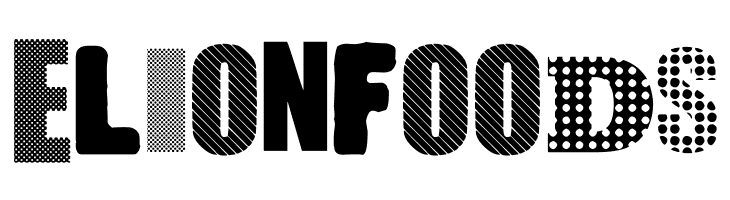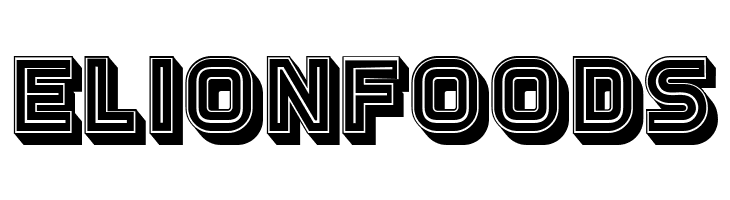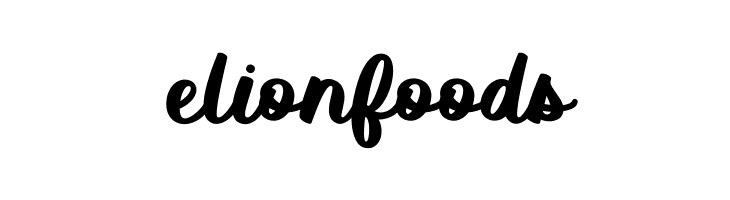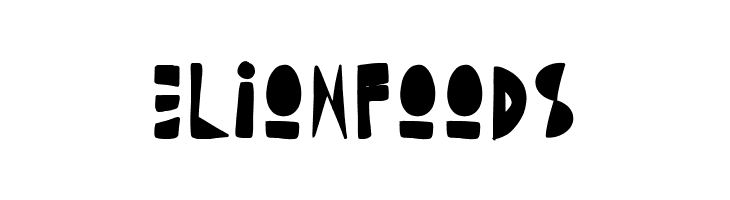
( Fonts by Kong Font )
A bold, playful font with rounded, skeletal-style characters.
A decorative, outline font with a bold, geometric style.
A modern, geometric font with bold, angular characters and a futuristic style.
A bold, 3D shadowed font with a modern, decorative style.
A modern, geometric sans-serif font with clean lines and a minimalist style.
( Fonts by Intype )
A playful, hand-drawn font with bold, rounded characters and exaggerated serifs.
( www.imagex-fonts.com )
A bold, patterned font with diverse textures and a playful, modern style.
( Fonts by Staircase Studio )
A playful, modern font with bold, rounded characters and consistent stroke width.
( Fonts by Staircase Studio )
A cursive, handwritten-style font with elegant, flowing strokes.
( Fonts by Staircase Studio )
A dynamic italic font with smooth, flowing lines and a modern aesthetic.
An elegant and flowing script font with sophisticated, cursive letterforms.
( Fonts by Tokokoo Studio )
A bold, angular font with a rugged, rock-like appearance.
( Fonts by dcoxy )
Highly decorative ornamental glyphs for borders and embellishments.
A bold, distressed font with a vintage, rustic aesthetic.
A bold, three-dimensional decorative font with strong geometric outlines.
A bold, geometric font with a three-dimensional layered outline effect.
A flowing, cursive font with a handwritten, elegant style.
( Fonts by Tokopress )
A playful, bold, and cartoonish font with thick, uneven strokes and a hand-drawn feel.
A modern, elegant handwritten font with fluid, cursive strokes.
A fluid and dynamic script font with elegant, connected letterforms.
A lively, flowing script font with interconnected, cursive letters.
A playful, bold handwritten font with thick strokes and a casual style.
A bold, flowing script font with a playful yet elegant style.
A decorative font with elongated, flowing swashes and a calligraphic style.
A stylish and elegant script font with flowing, interconnected letterforms.
A graceful script font with flowing, cursive letters and elegant swashes.
A playful, cursive font with fluid, interconnected strokes and a whimsical charm.
( Fonts by Helotype - Yudi Setiawan - Personal-use only. For commercial use please contact owner. )
A flowing, cursive font with elegant, elongated strokes and a sophisticated appearance.
( Fonts by Hugefonts - Personal-use only. For commercial use please contact owner. )
A lively and playful script font with a hand-drawn aesthetic.
( Fonts by Letterium Studio - Personal-use only. For commercial use please contact owner. )
A sophisticated script font with graceful, flowing lines and a handwritten signature style.
( Fonts by Marianne - Personal-use only. For commercial use please contact owner. )
A pixelated, retro-style font with a blocky, 8-bit digital appearance.
( Fonts by Marianne - Personal-use only. For commercial use please contact owner. )
A pixelated, retro-style font with a bold, geometric design.
A bold, playful font with irregular, hand-drawn characters.
A dynamic handwritten font with fluid, irregular strokes and a creative flair.
A bold, handwritten font with dynamic curves and playful energy.